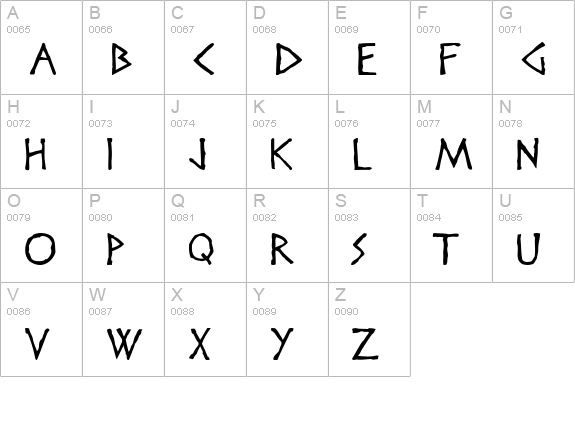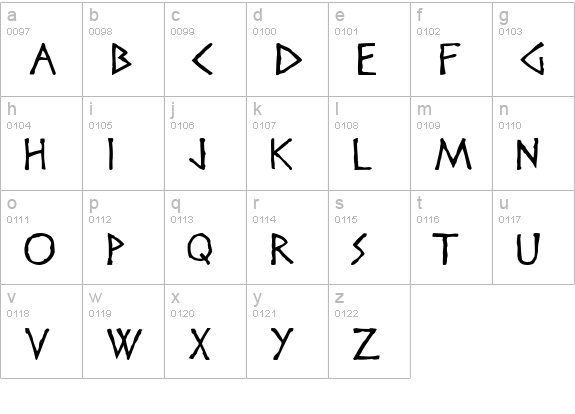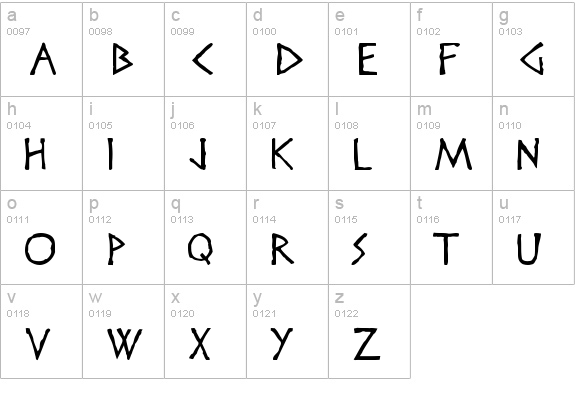
Disney Heroic Font Details
Disney Heroic font is a whimsical and enchanting typeface that captures the essence of magic and adventure. With its playful curves and bold lettering, this font is perfect for adding a touch of fairy tale charm to your designs. Whether you're creating party invitations, greeting cards, or posters, Disney Heroic font will bring a sense of wonder and excitement to your projects. Best of all, Disney Heroic font is available for free download at FontsMarket.com. So you can easily add a touch of Disney magic to your creations without any cost. Embrace the spirit of heroism and imagination with Disney Heroic font today!